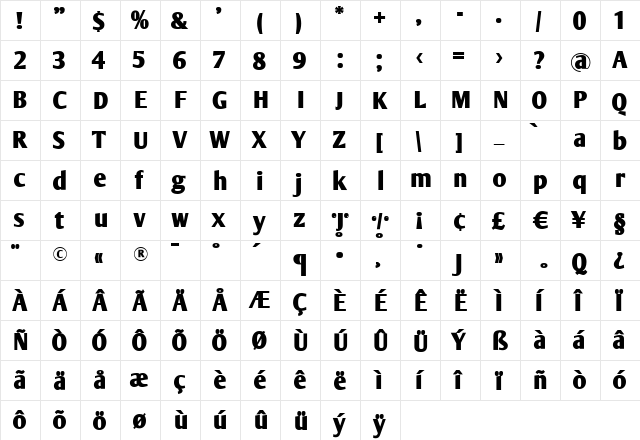
ArmWrestler Bold
Design Context for ArmWrestler Typeface
ArmWrestler offers clean, dependable letterforms without strong stylistic allegiance, making it a practical choice for designers who need flexibility. Its bold stroke weight gives it real presence on the page.